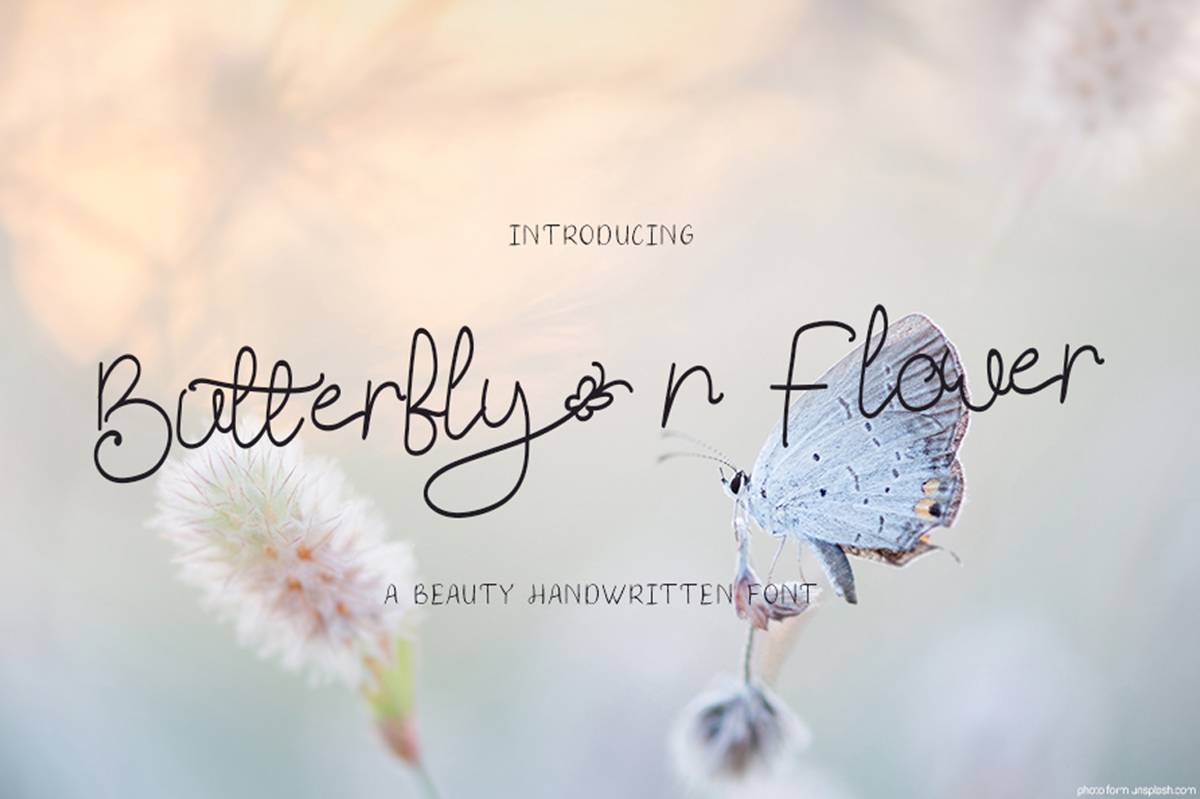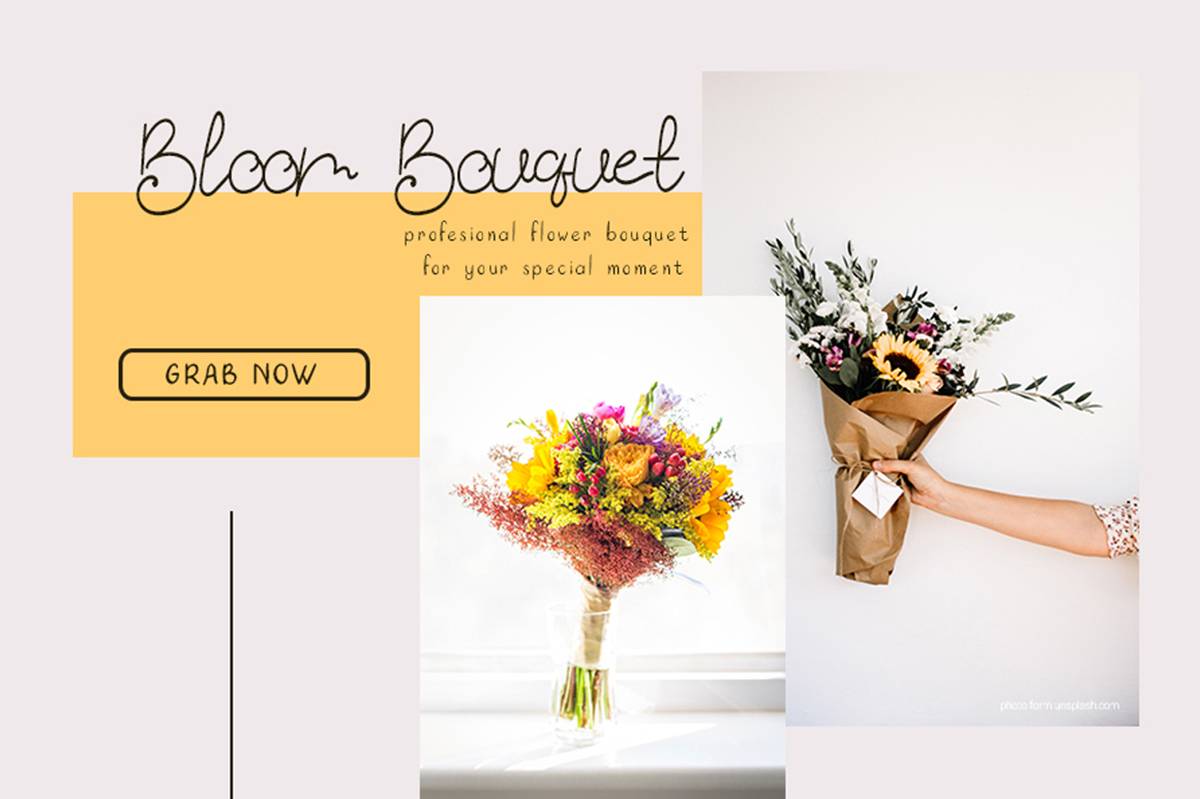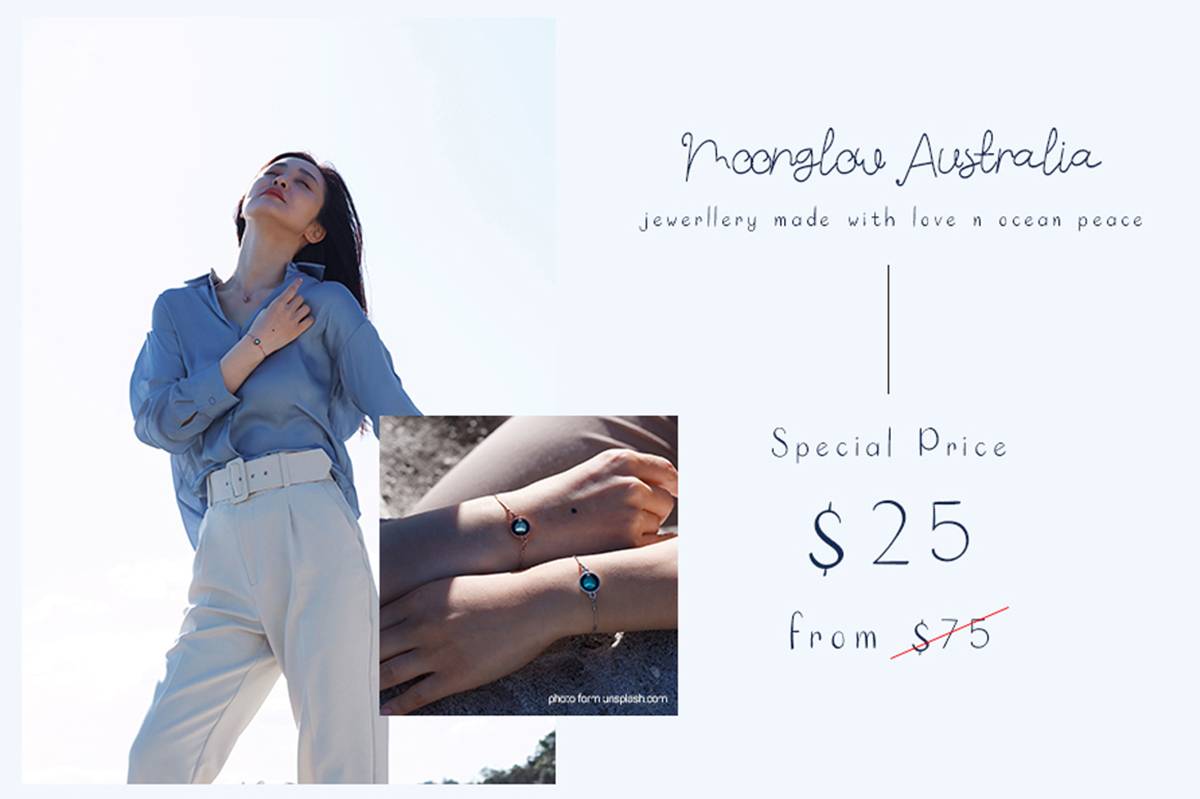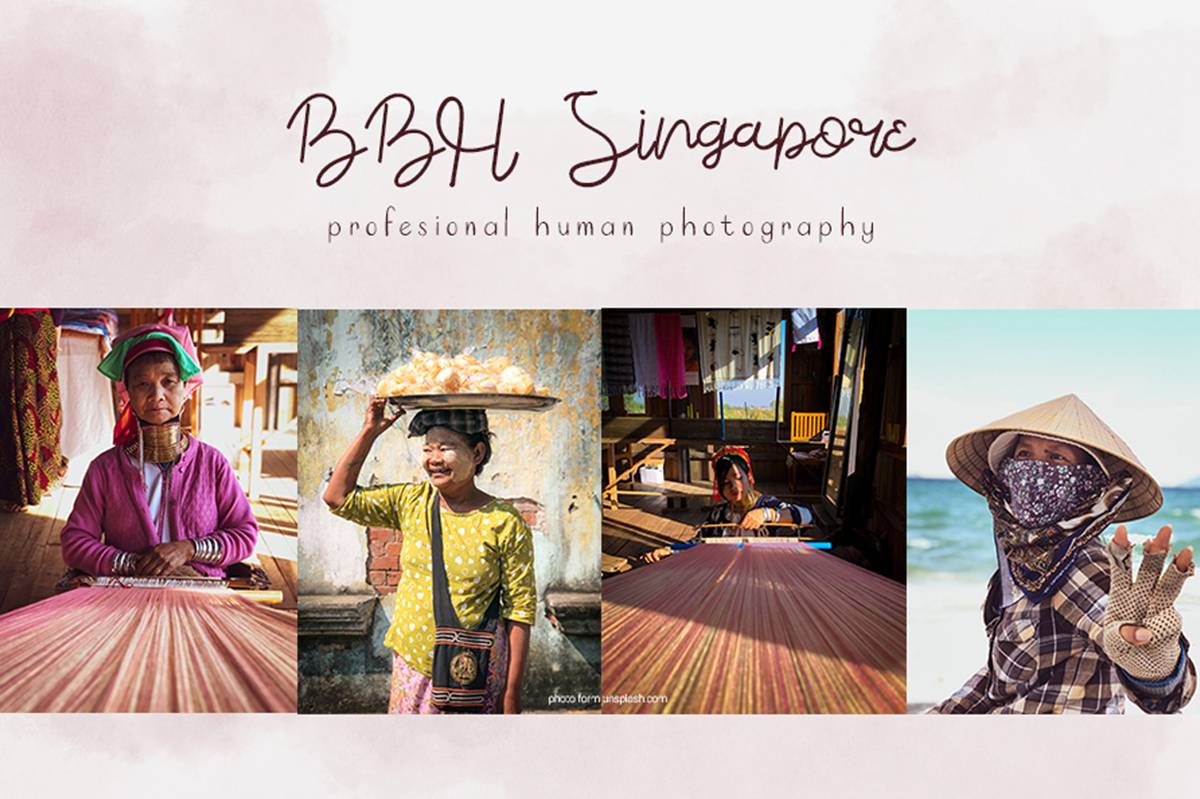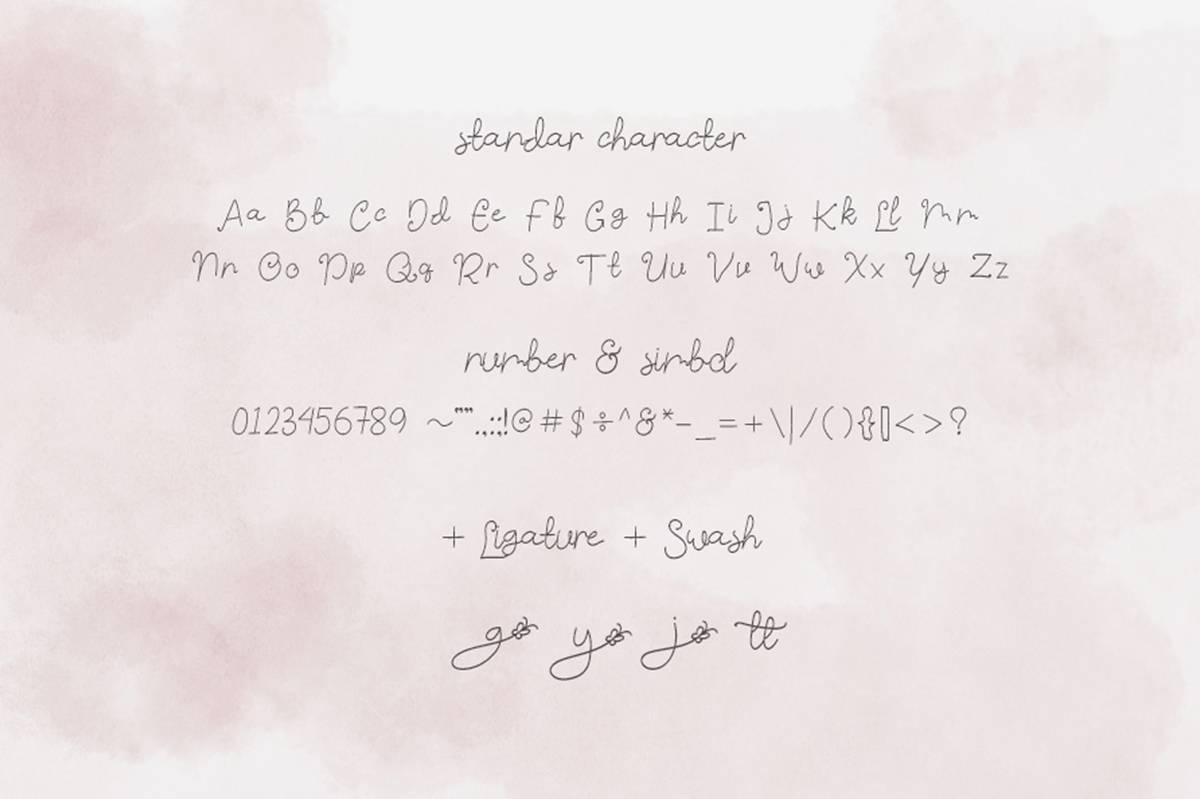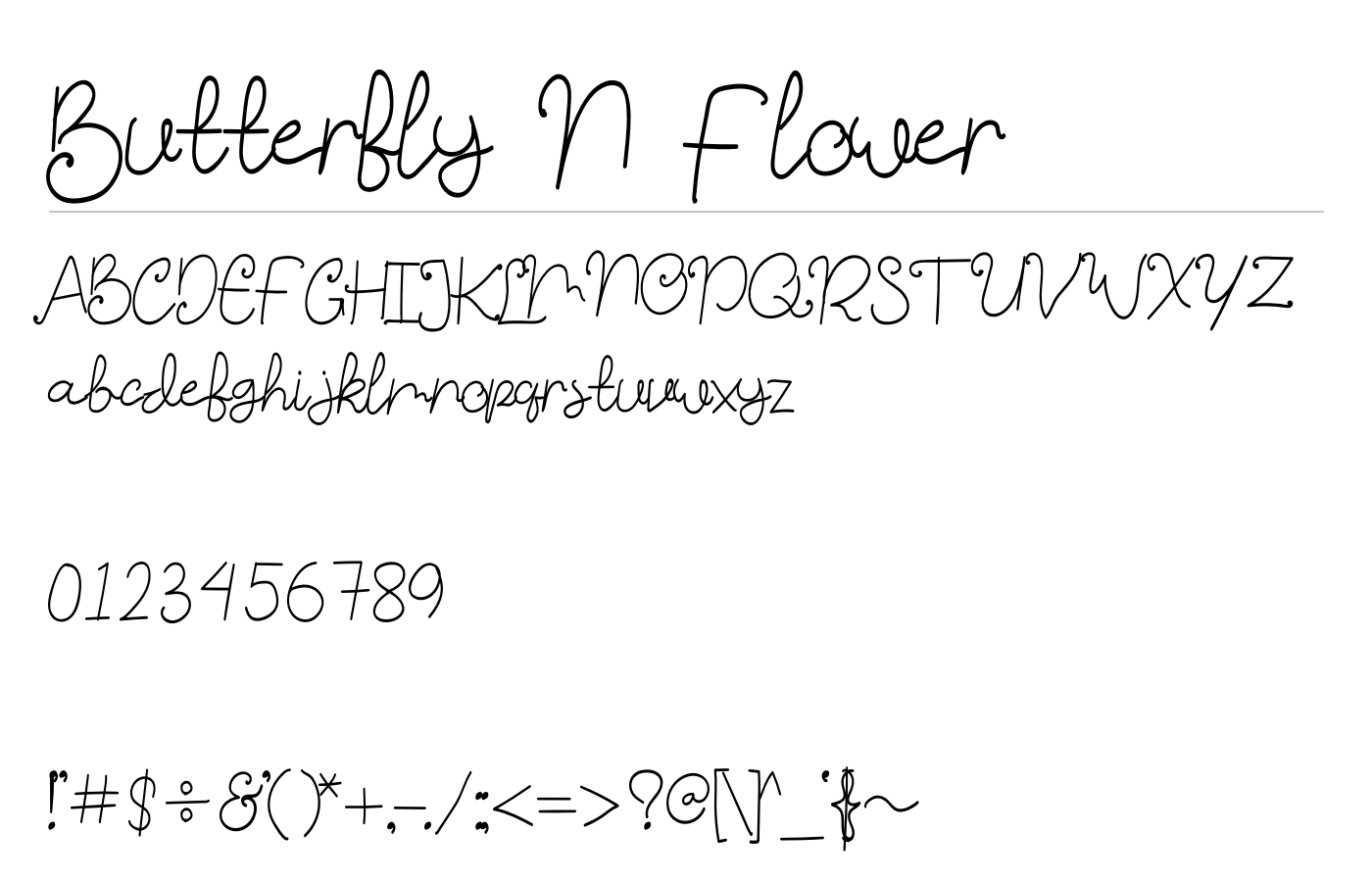
Butterfly n Flower Font is a delicate, handwritten script with playful, whimsical strokes that feel light and airy. Its tall, slender letterforms with charming curls and loops give it a friendly, casual elegance perfect for creative projects like invitations, greeting cards, and feminine branding. This font shines in designs that want to convey warmth, friendliness, and a touch of handcrafted beauty.
Butterfly n Flower Font
About Butterfly n Flower Font
| Font family | Butterfly n Flower Font |
| Designer | Luthfi Fadhillah |